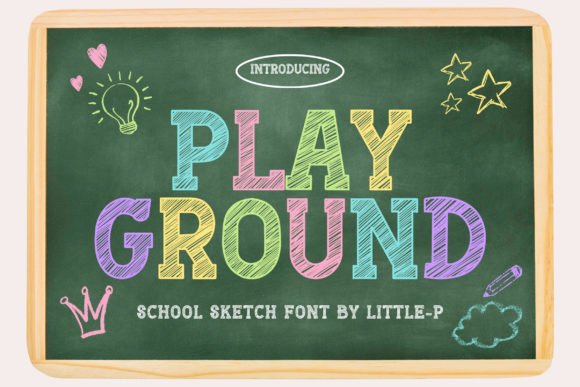
Playground Font
Introducing Playground the perfect font for kids that embodies fun and creativity with its playful display and sketch handwritten style. With a back-to-school theme, this font captures the joy and excitement of childhood. Suitable for children of all ages, Playground is ideal for instructional media, custom DIY craft projects, personalized names, sublimations, posters, and various other creative endeavors.